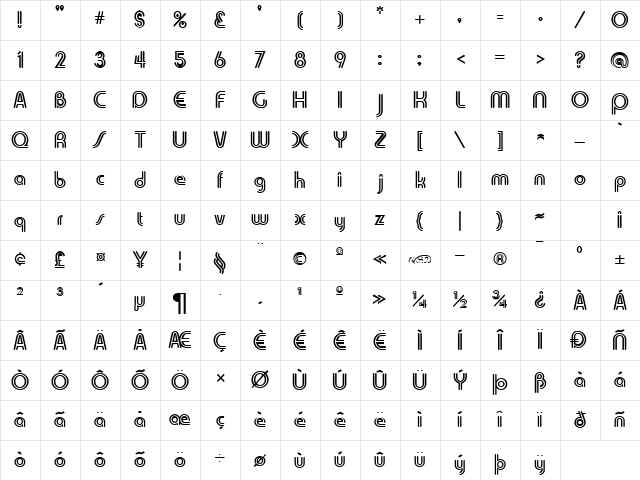
Duo-Line Regular
Duo-Line Family
Design Context for Duo-Line
Duo-Line is a composed and adaptable typeface that performs quietly and consistently across a wide range of design contexts.